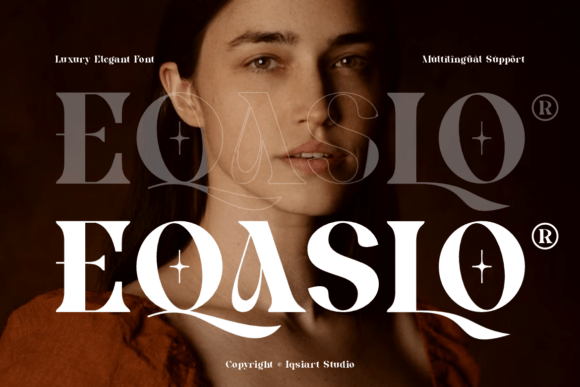
Eqaslo: A Serif Font for Authentic Visual Design
In the crowded landscape of digital and print design, a typeface must do more than simply convey words; it must embody a feeling. The Eqaslo font emerges as a serif and authentic display typeface designed precisely for this purpose, offering a blend of classic elegance and modern clarity that suits a variety of creative needs. Whether you are crafting a brand identity or developing a sophisticated editorial layout, this typeface provides the foundational character necessary to elevate your visual communication from ordinary to memorable.
Typography is a silent ambassador for any brand. The choice of font directly influences how an audience perceives a message, impacting trust, readability, and emotional resonance. Eqaslo, with its authentic serif structure, provides a sense of heritage and reliability. This makes it an exceptional choice for projects where establishing authority and sophistication is paramount. When integrated into a design workflow, it helps maintain a consistent visual hierarchy, ensuring that headlines capture attention while body text remains legible and inviting.
Effective design relies on assets that work seamlessly together. The Eqaslo font family is designed to complement a wide range of visual styles. When pairing it with other elements, consider the contrast between the serif text and sans-serif supporting elements to create a balanced composition. Furthermore, the inclusion of multilingual support ensures that global campaigns maintain their integrity and professional presentation across different languages and regions.
Choosing the right asset for a project involves more than just aesthetic preference; it requires strategic thinking. When evaluating fonts like Eqaslo for your next project, consider the following:
1. Readability vs. Style: Ensure the font remains legible at the intended size. A display font should command attention without sacrificing clarity.
2. Scalability: Test how the typeface renders across different sizes, from a small mobile screen to a large-format print advertisement.
3. Emotional Alignment: Does the font style match the brand’s voice? The authentic nature of Eqaslo suggests tradition and trustworthiness, making it unsuitable for brands aiming for a purely futuristic or grunge aesthetic.
By thoughtfully selecting typography and other creative assets, designers can bridge the gap between a concept and a polished reality. Quality design resources like the Eqaslo font family not only streamline the creative process but also ensure that the final output resonates deeply with the target audience, effectively combining visual beauty with strategic communication.